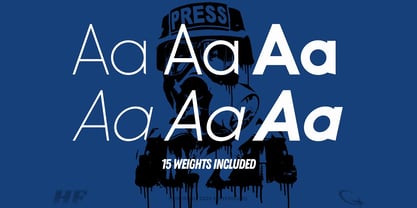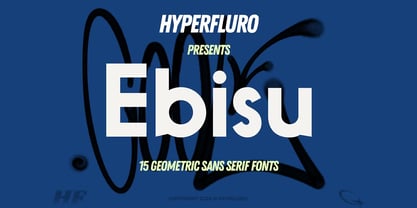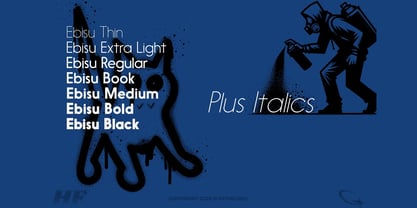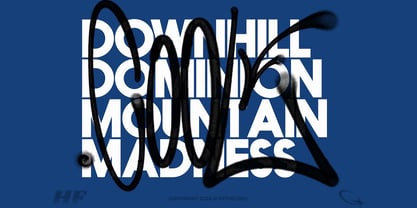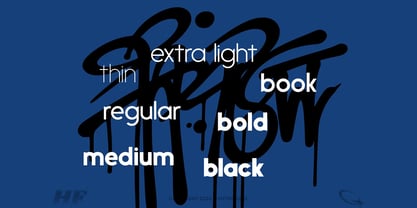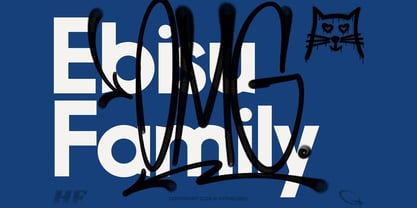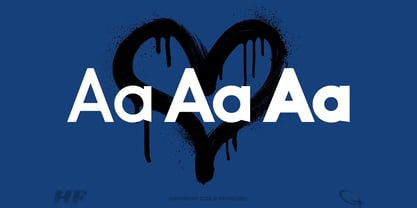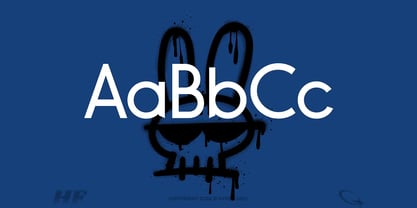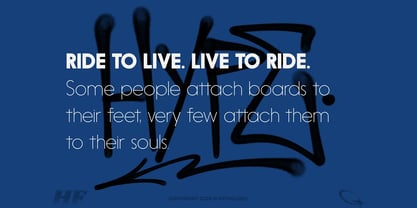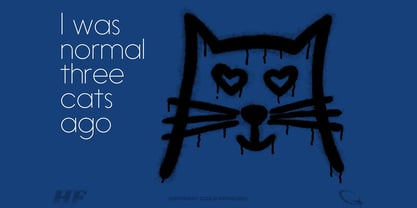
Ebisu™
Ebisu is a modern sans serif type family featuring 10 distinctive weights. Originally designed by Alex Haigh in 2010, Ebisu draws inspiration from Haigh's earlier 2008 global best-seller, Hiruko
This contemporary font abandons the softer curves in favour for a more robust geometric style. Ebisu transcends being merely a geometric replica; its lowercase characters possess an exaggerated sharpness, imparting a unique aesthetic to the entire typeface family.
The meticulous kerning of Ebisu is a testament to its precision, with each letter crafted individually to ensure harmonious integration across all weights. This attention to detail creates a cohesive and tightly knit sans serif family ideal for modern typographic needs.
Ebisu's versatility is further enhanced by its extensive OpenType features, which include an expanded character set supporting both Eastern and Western European languages. Each weight in the Ebisu family conveys a distinct personality, making it a perfect addition to any designer's toolkit. Its versatility, cleanliness, and crafted edge make Ebisu the ideal modern sans serif family to complement classic fonts.